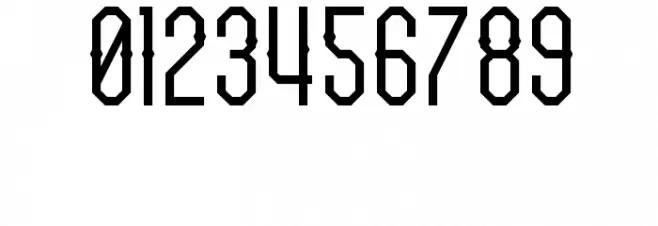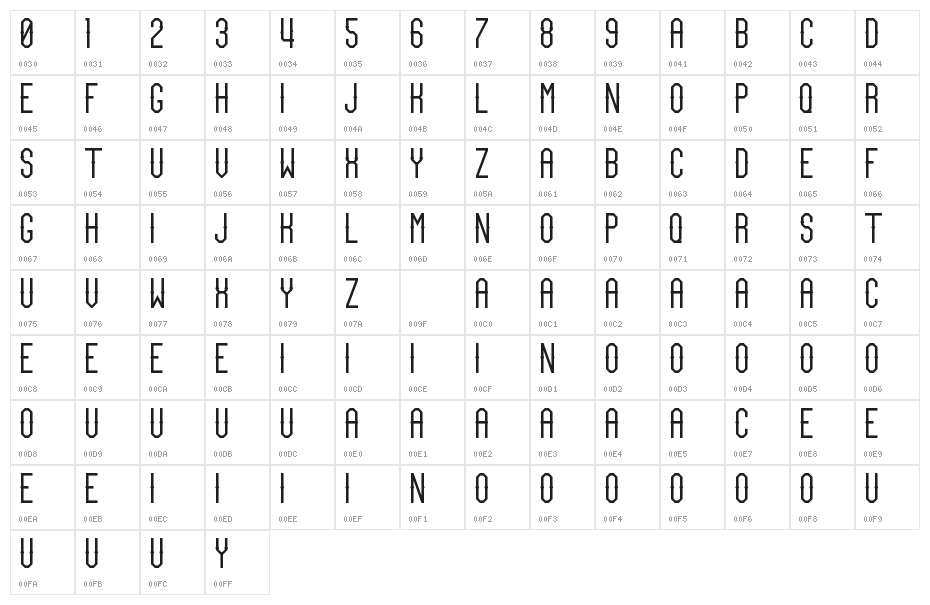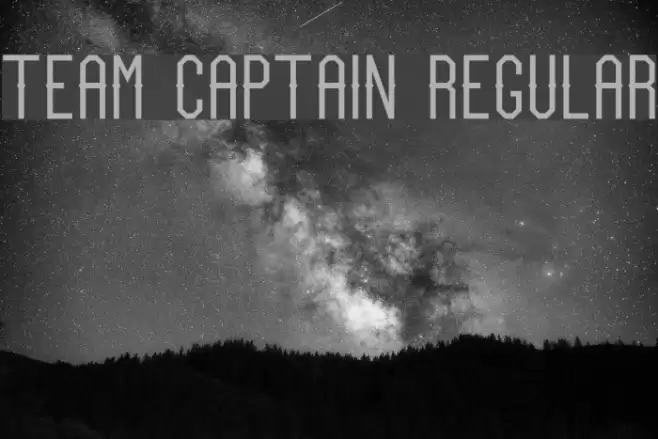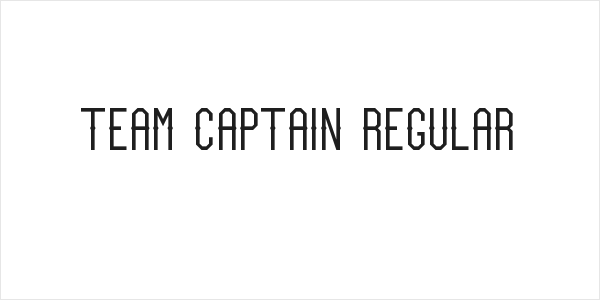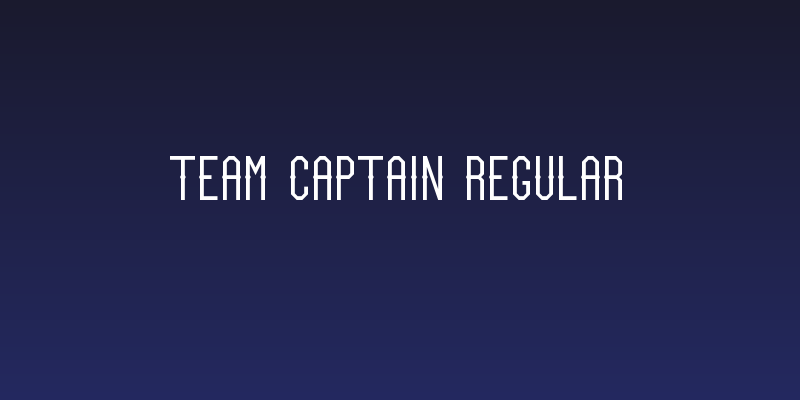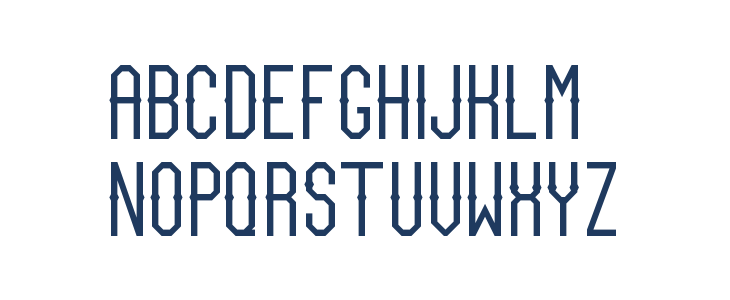
Team Captain Regular Font
Team Captain Regular Description
This font features a bold, geometric design with a distinct industrial feel. The characters are constructed with straight lines and sharp angles, giving it a modern and edgy appearance. The uppercase letters are tall and narrow, while the lowercase letters maintain a consistent height, creating a uniform look. The numerals and special characters follow the same design principles, ensuring cohesion across all elements. The font's unique style makes it stand out, with a strong presence that commands attention. Its clean lines and structured form make it suitable for a variety of design applications.